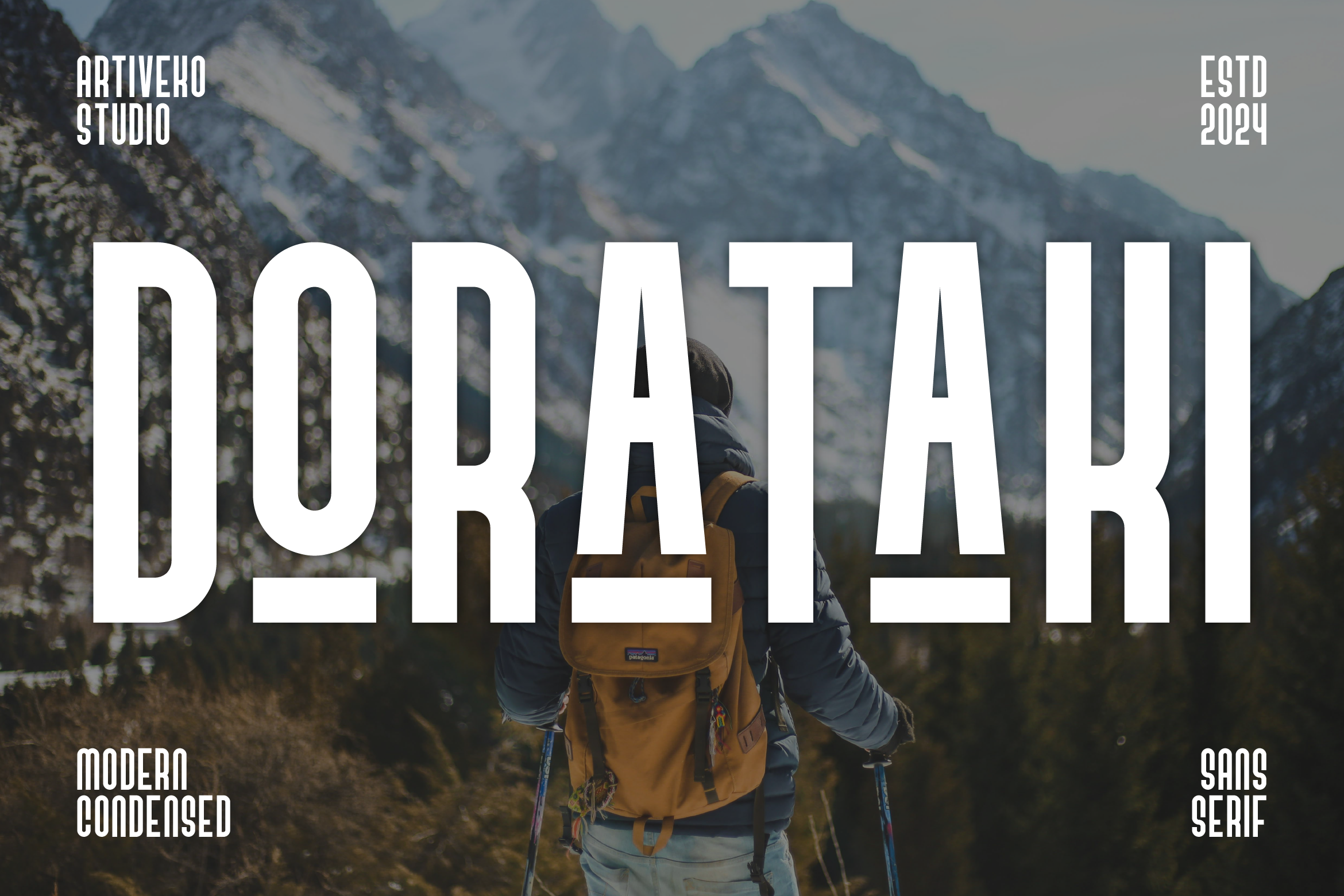
- Dorataki Elegant Sans Serif Font
Dorataki is a sleek and contemporary sans serif font crafted for modern design needs. With clean lines, geometric proportions, and refined details, Dorataki offers a minimalist aesthetic that works perfectly for branding, editorial layouts, web design, product packaging, and social media graphics.
Its strong yet elegant appearance ensures clarity and style, making it versatile for both large headlines and readable body text. Whether used for fashion brands, tech startups, or creative projects, Dorataki brings sophistication and modern appeal.
The font includes uppercase and lowercase letters, numerals, punctuation, multilingual support, and stylistic alternates to give your designs extra flexibility.
Elevate your designs with Dorataki — the sans serif font that combines bold simplicity with timeless elegance.